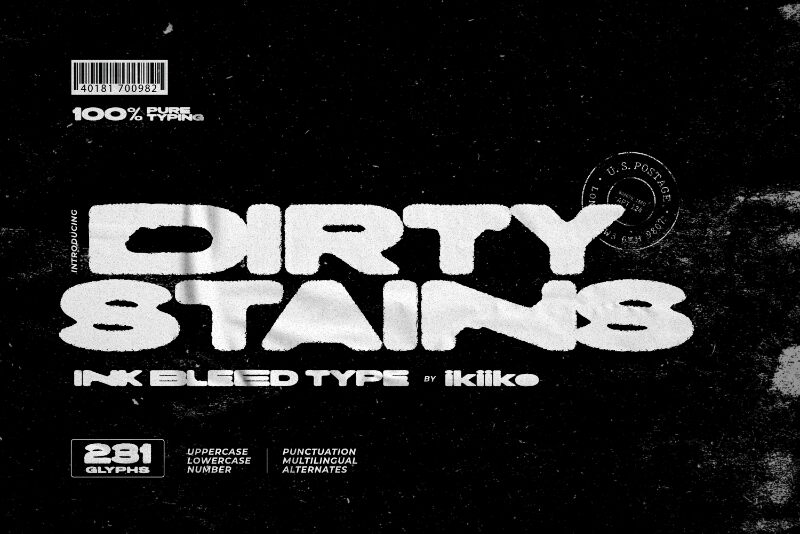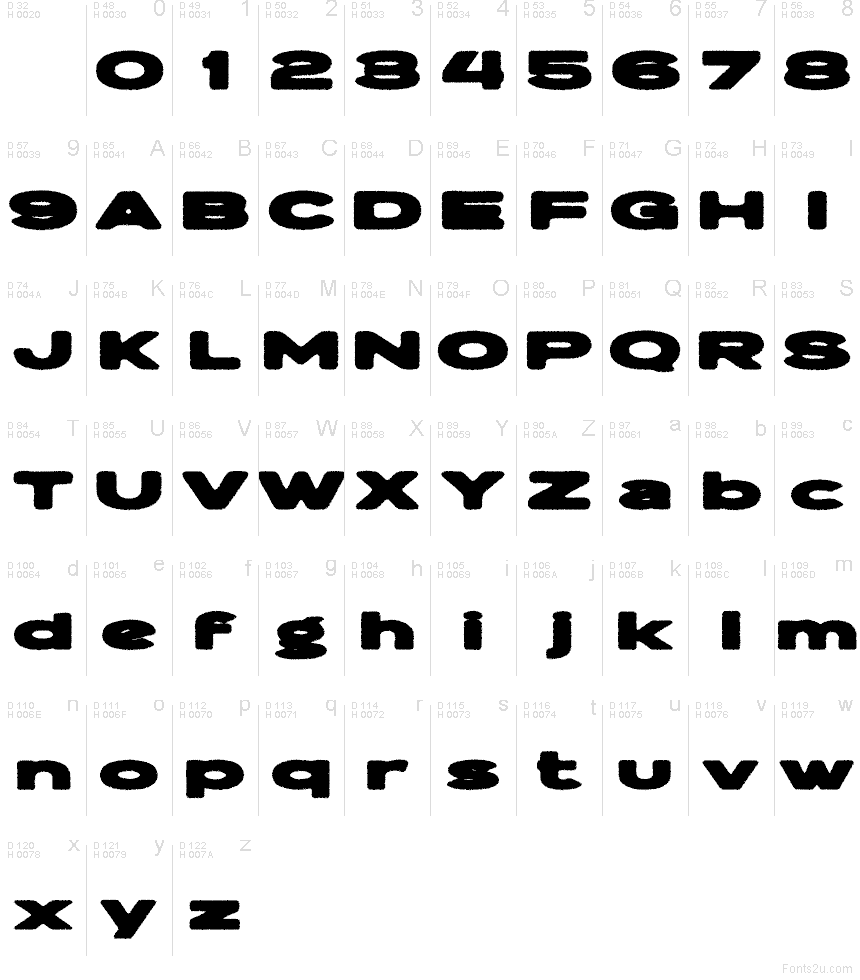
Dirty Stains font by Ikiiko Type is a free eroded display typeface that looks like bold bubble lettering dragged through wet ink and city grime. The chunky, rounded forms feel playful at first glance, but the rough, splattered edges add a raw, streetwise attitude that grabs attention from a distance. It’s loud, messy in a controlled way, and perfect when you want text that feels printed, smudged, and alive rather than clean and polished.
Using Dirty Stains, your titles instantly feel like they belong on gig posters, skate or streetwear graphics, zines, horror-comedy covers, DIY event flyers, and bold social media promos. This free font shines when it’s set big and tight, letting the inky texture and blobby curves do the talking. For balance, pair Dirty Stains with a simple, clean sans serif for body copy so the gritty headline stays the star.